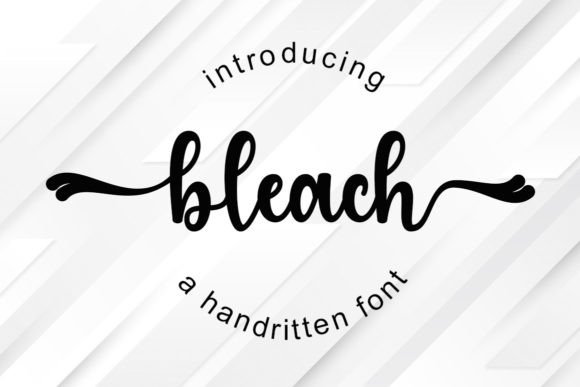
**Introducing Bleach Font: The Ultimate Luxury Brand Enhancer**
In a world of endless fonts, Bleach Font stands as a beacon of elegance, sophistication, and timeless beauty. This enchanting script font is meticulously crafted to elevate your designs to the highest pinnacle of luxury and exclusivity. Whether you're a seasoned designer seeking to create a lasting impression or an aspiring entrepreneur looking to make a statement, Bleach Font is your ultimate companion.
**Immerse Yourself in the World of Elegance**
With its graceful curves and delicate strokes, Bleach Font embodies the essence of luxury. Its carefully selected glyphs and ligatures dance harmoniously, creating a visual symphony that captivates and enchants. Experience the sheer joy of watching your designs transform into masterpieces as Bleach Font weaves its magic.
**Unleash Your Creativity with Endless Possibilities**
Bleach Font's versatility knows no bounds. Whether you're designing logos, branding, quotes, clothing, tote bags, business cards, or websites, this font seamlessly adapts to your vision. Its effortless flow and timeless appeal make it the perfect choice for any project seeking a touch of sophistication and elegance.
**Elevate Your Projects to New Heights**
With Bleach Font, mediocrity becomes a distant memory. Prepare to witness your projects transcend the ordinary and ascend to new heights of excellence. Experience the thrill of creating designs that leave an indelible mark on your audience, leaving them awe-inspired and craving more.
**A Font That Speaks Volumes**
Bleach Font is more than just a collection of letters; it's a symphony of visual artistry that speaks volumes about your brand or project. Its luxurious aura radiates professionalism and sophistication, leaving a lasting impression on all who encounter it. Prepare to watch your designs blossom into masterpieces that command attention and ignite conversations.
**The Perfect Choice for Luxury Brands**
Bleach Font is the ultimate choice for luxury brands seeking to elevate their image and establish a strong presence in the marketplace. Its intrinsic beauty and elegance resonate with discerning consumers who appreciate the finer things in life. Invest in Bleach Font and watch as your brand exudes an aura of exclusivity and luxury that sets you apart from the competition.
**Experience the Magic of Bleach Font Today**